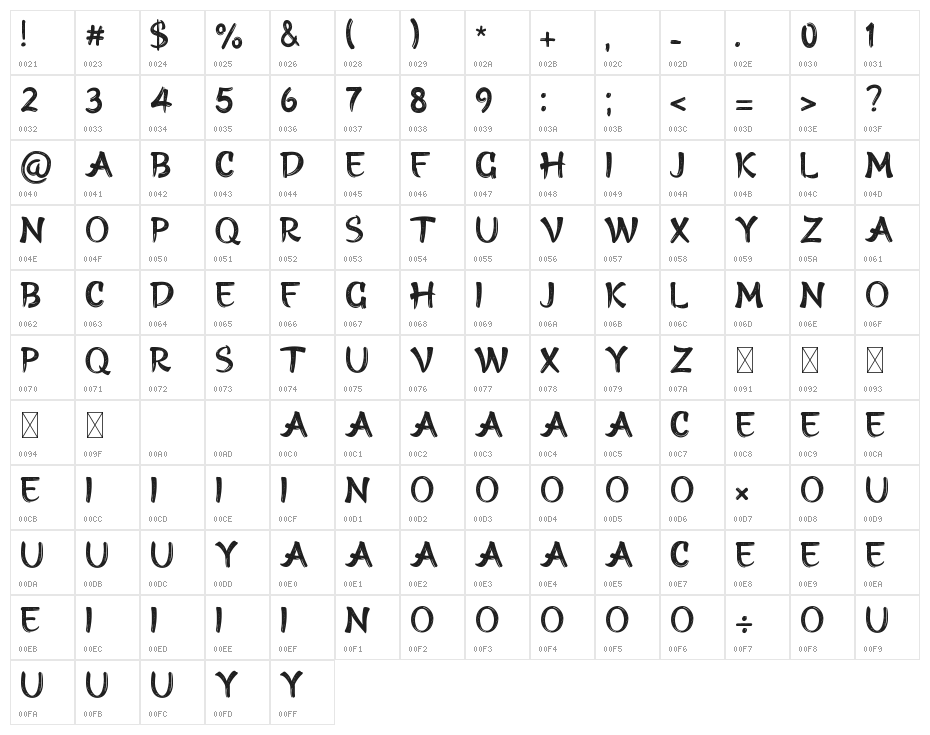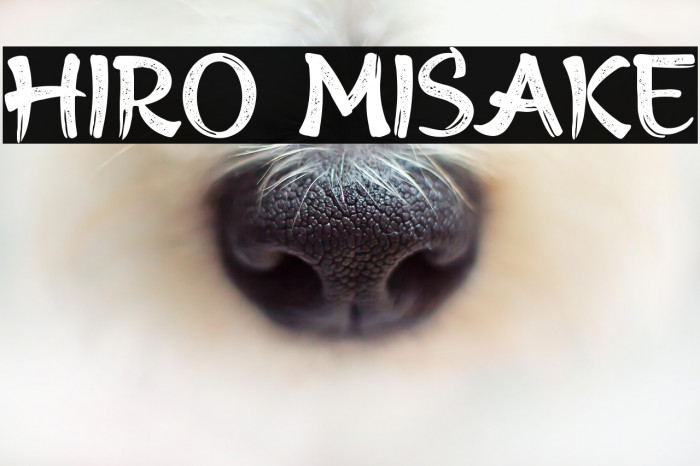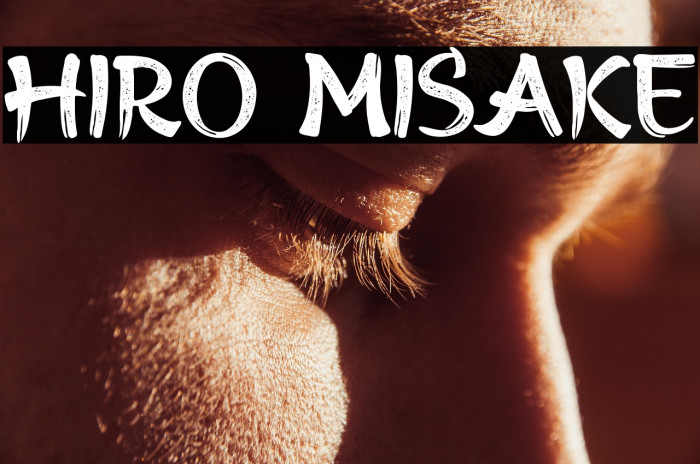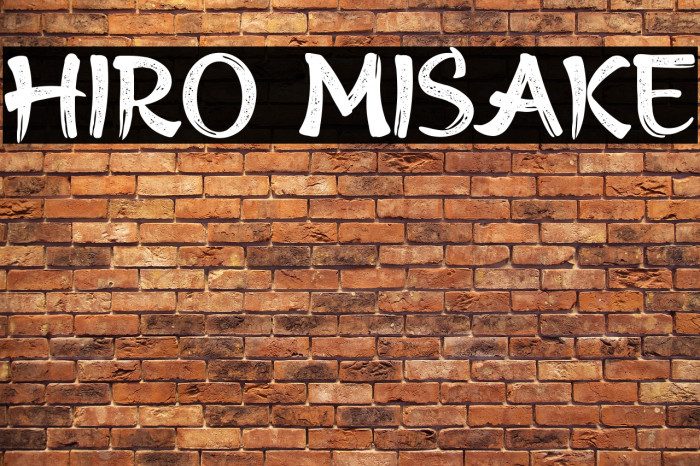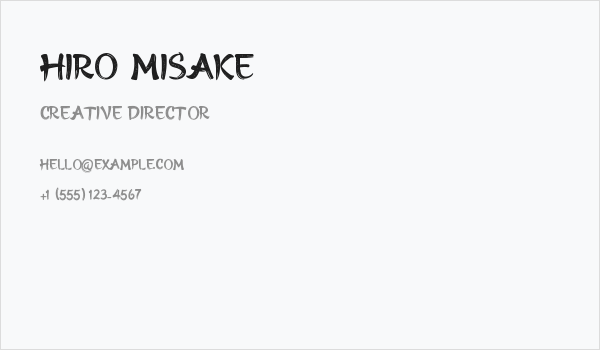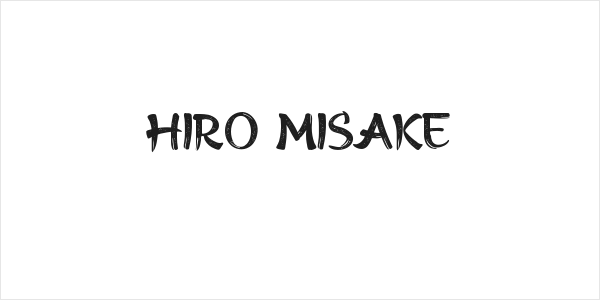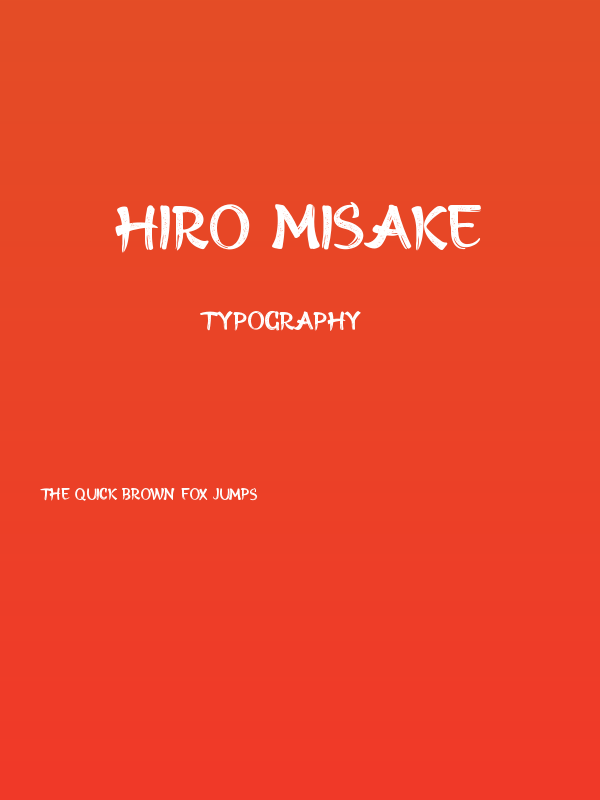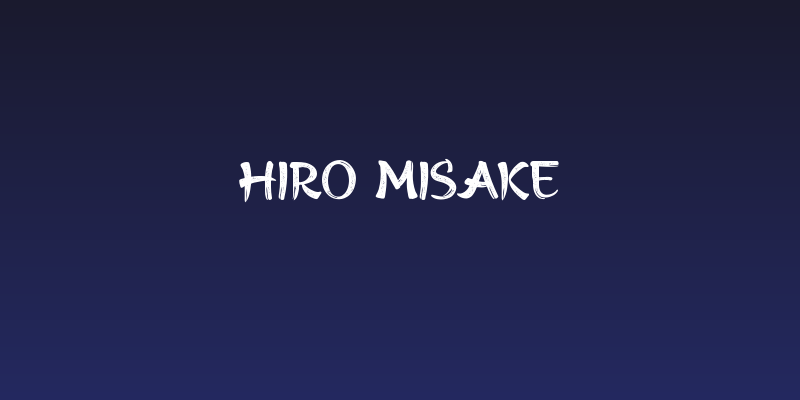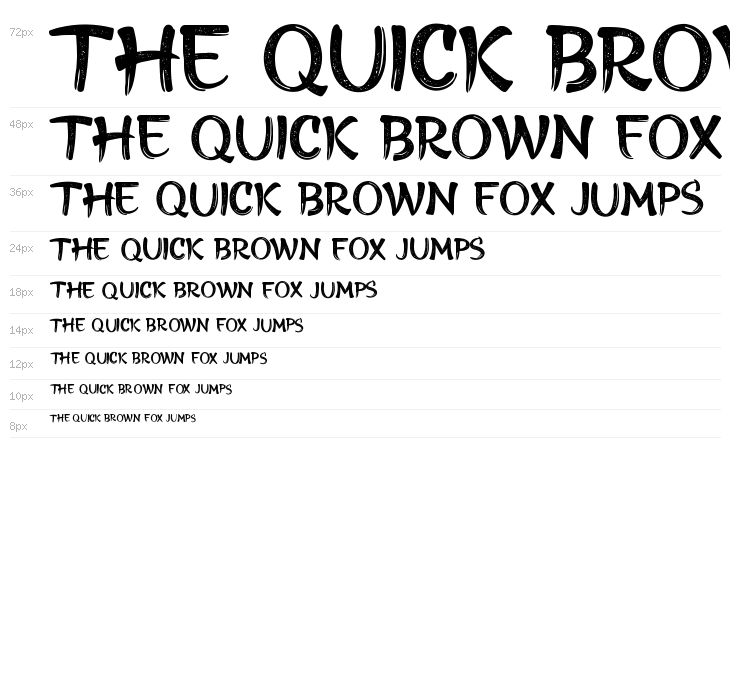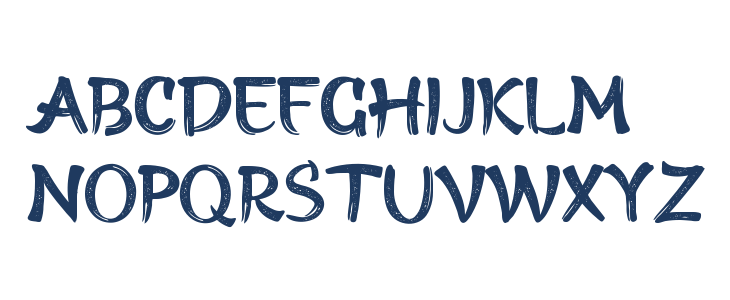
HIRO MISAKE Font
HIRO MISAKE Description
This font features a bold and dynamic brush script style, characterized by its energetic and playful strokes. The letters have a hand-drawn appearance, with varying thicknesses that add a sense of movement and spontaneity. The uppercase and lowercase letters are well-balanced, maintaining a consistent flow throughout. The numbers and special characters follow the same lively aesthetic, making them suitable for creative and informal designs. The texture within the strokes adds a rustic and artistic touch, enhancing its visual appeal.
| Proposed Projects | Ideal for branding, posters, invitations, and any project that requires a lively and artistic touch. |